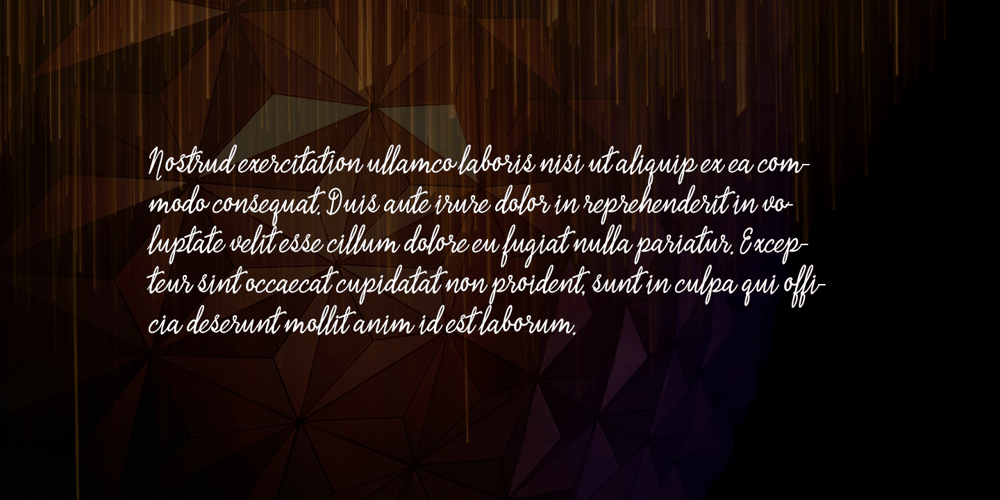
Mutiara Font Family was designed by Roiyani Teungku and published by Groen Studio. Mutiara contains 1 styles and family package options. Mutiara is a script font that has a very natural, handwritten characteristic and is very suitable for various and unique uses.